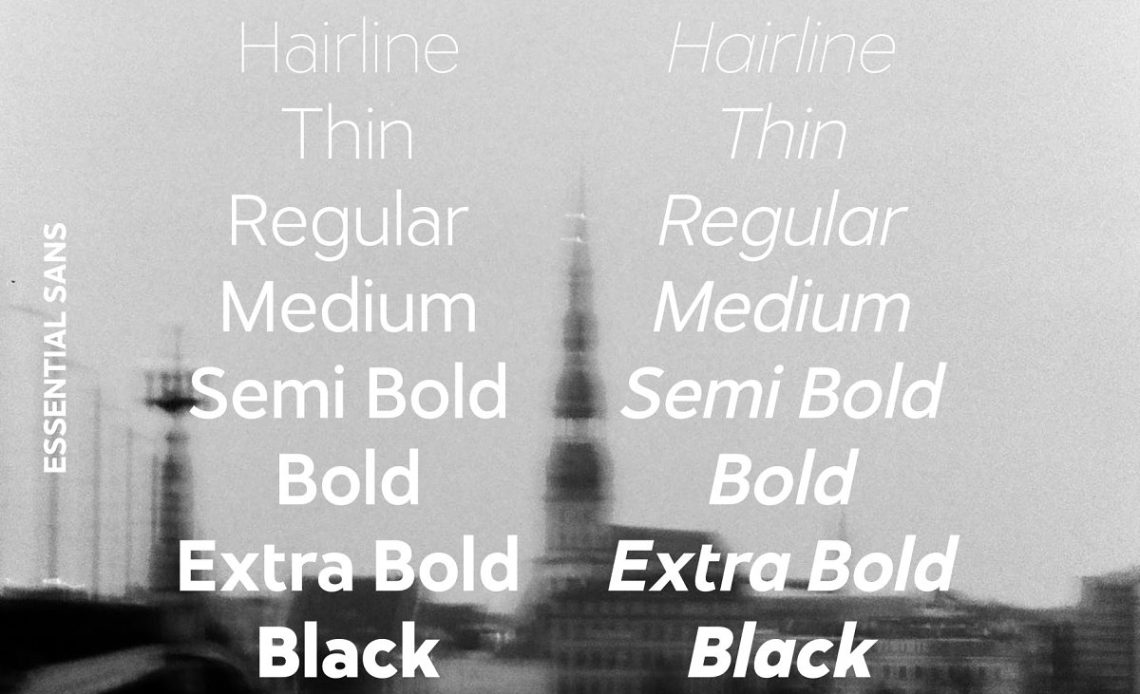
Introducing Essential Sans - the ultimate sans serif typeface designed by Jen Wagner for all your branding, web, and print design projects. This 16-font typeface features eight weights and italics, providing you with the perfect options for all your design needs.
The beauty of Essential Sans is in its simplicity. Each form has been pared down to its essentials, allowing it to blend in seamlessly or stand out boldly, depending on your design preference. And with the added bonus of a variable font for Adobe users, you can enjoy extra versatility for your projects.
But that's not all. Essential Sans also includes outline circled numbers 0-9 and letters A-Z, as well as solid circle versions of the same for each font. And with a set of arrows, you have everything you need to create beautiful, minimalist logos and design elements.
One thing to note about Essential Sans is the letter spacing. It was intentionally spaced for clean reading if you wanted to use it for body type. However, for display use, we recommend setting the spacing a little tighter (around -10 to -20 should do!).
With its flexibility, Essential Sans is perfect for any design project you have in mind. Whether you're looking to create a stunning logo, branding materials, non-editable invitations, packaging, products, or even use it with Canva, Essential Sans has you covered.
Overall, Essential Sans is the best font for quotes in Canva, and it's perfect for anyone looking for a versatile, minimalist, and eye-catching font for all their design needs.